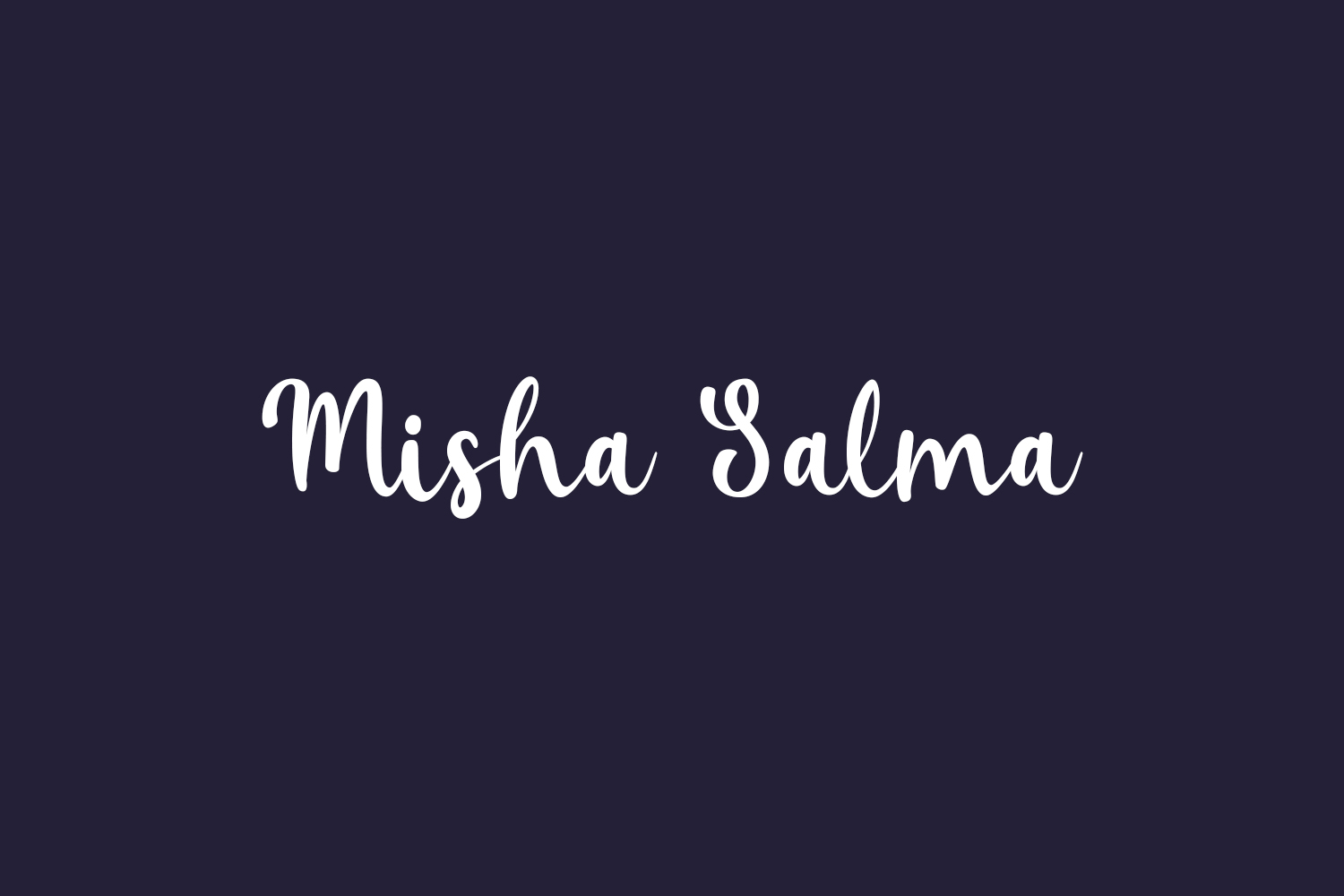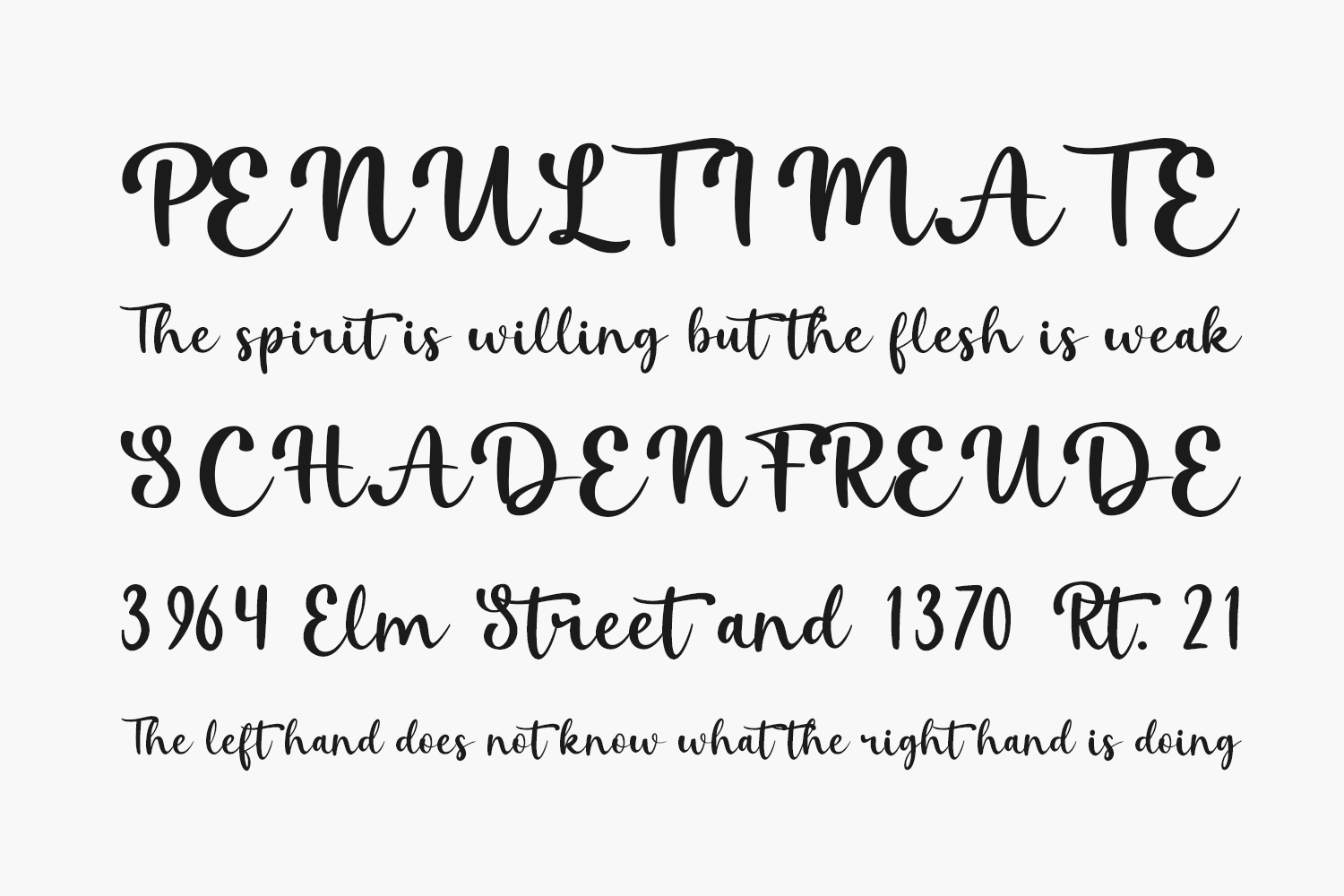
Misha Salma Free Font is a refined and dainty handwritten font. Dainty and joyful, this font will be ideal for writing wedding invitations, cards or any other design that may need a romantic, personalized touch. Misha Salma Free Font was designed by Graphix Line Studio and is free for personal use only. Please purchase the full version for commercial use.